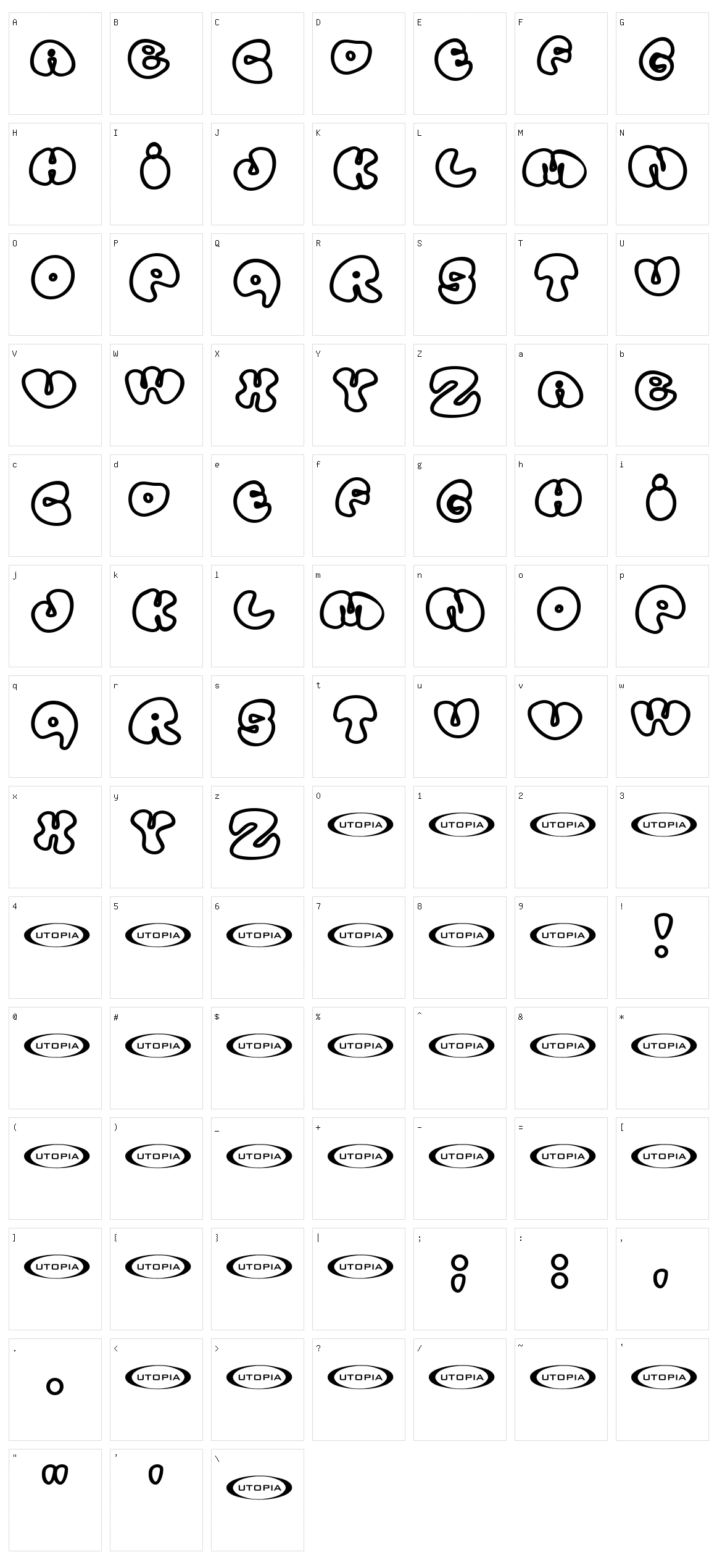
The free font Tolo is carefully designed by Utopia, showcasing a thoughtful balance of creativity and usability and falls under the Cartoon font style. When you download the ZIP file, it contains only 22.18 KB of font files, making it lightweight and quick to download. Please review the license details below to understand permitted usage and distribution rights. If license information is not available, we recommend using this font for personal projects only or contacting the author directly for commercial usage permissions.